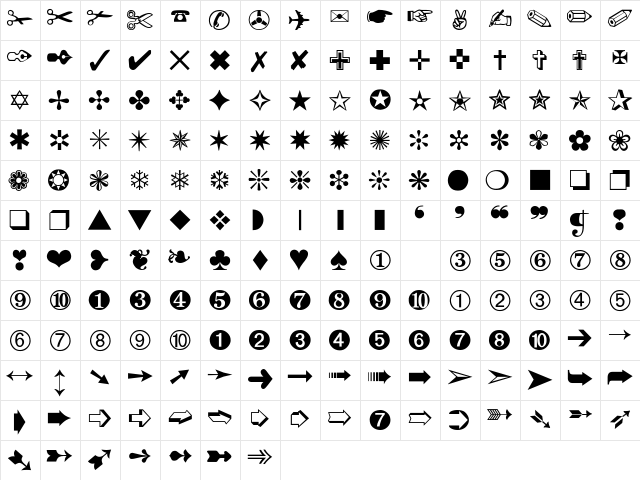
dingbats-Thin Regular Free Font
dingbats-Thin Regular
dingbats-Thin Family
Design Context for dingbats-Thin
dingbats-Thin is a composed and adaptable typeface that performs quietly and consistently across a wide range of design contexts. Its slender proportions lend an understated elegance to any composition.